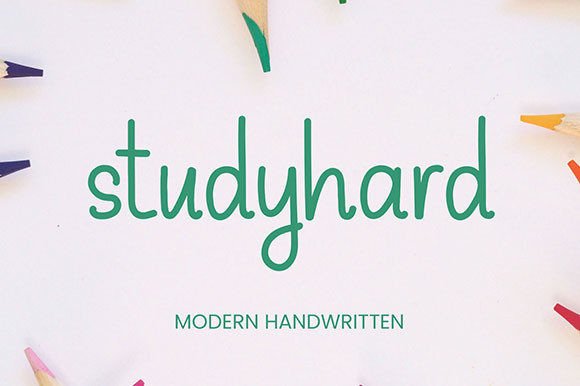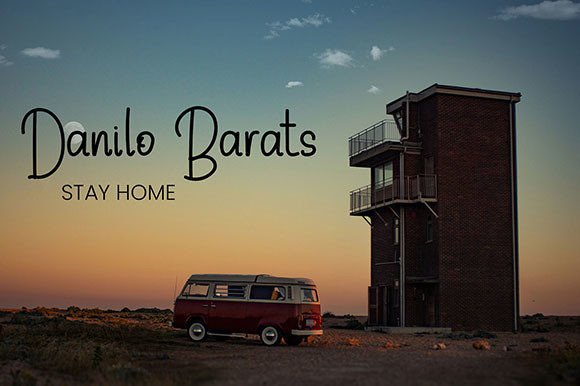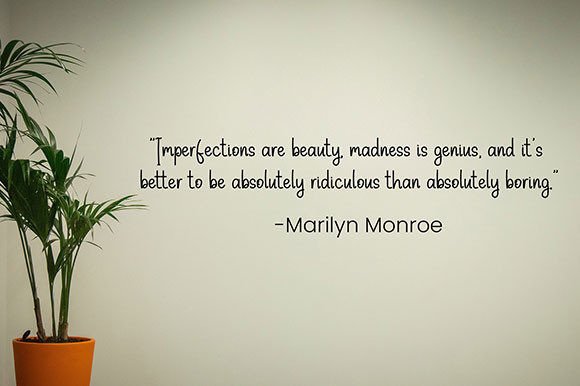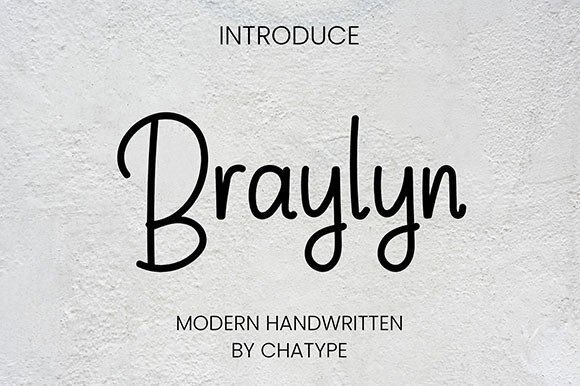
Introduction to Braylyn Font
Braylyn is a casual and neat handwritten script font.
Why Choose Braylyn Font?
Braylyn Font offers exceptional quality and versatility, making it a valuable addition to your design toolkit. Whether you’re creating for personal projects or commercial use, Braylyn Font delivers professional results.